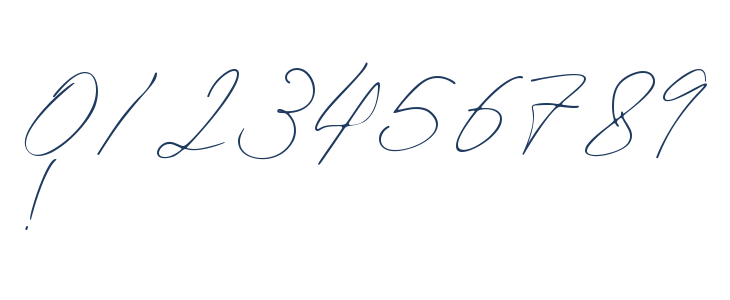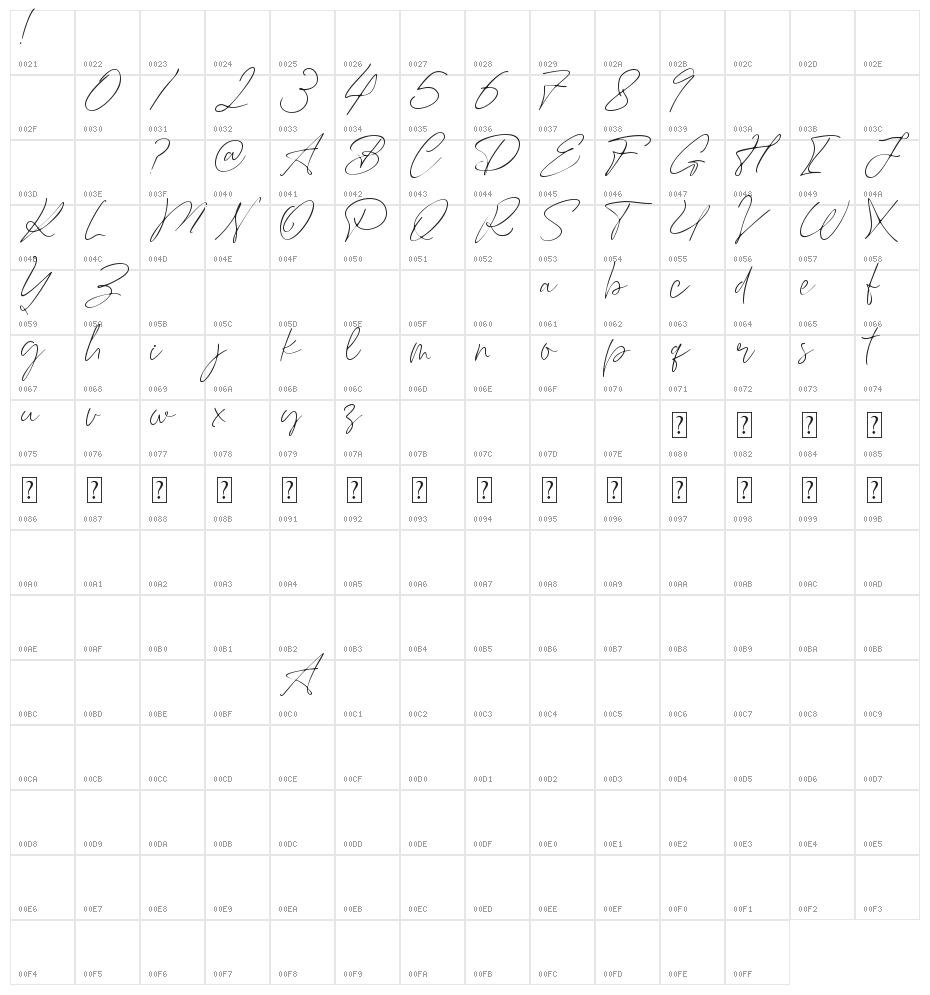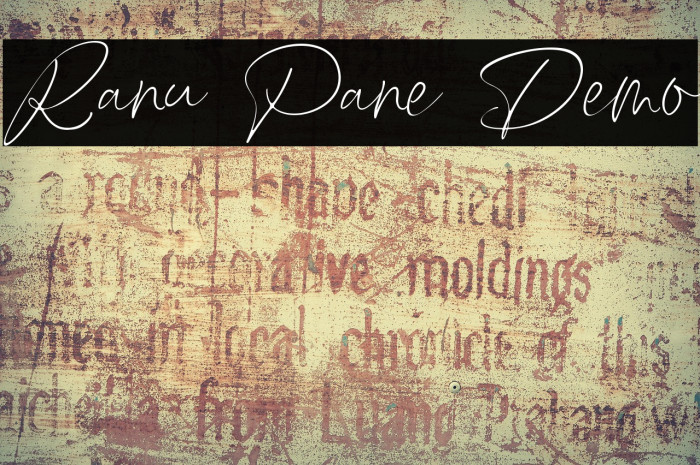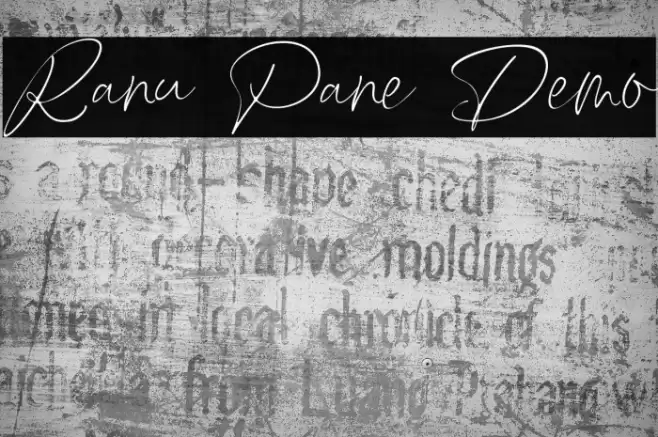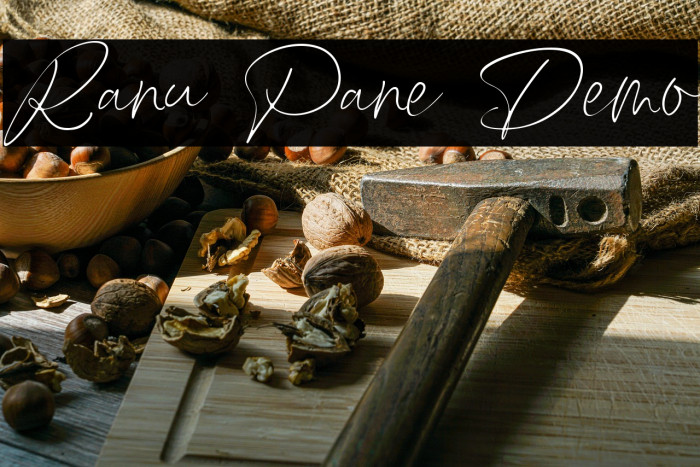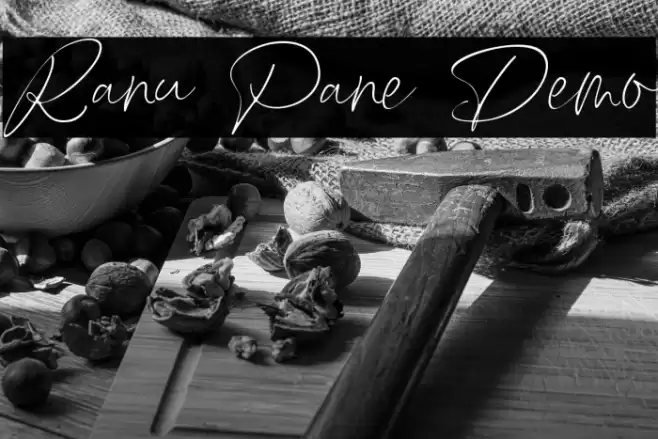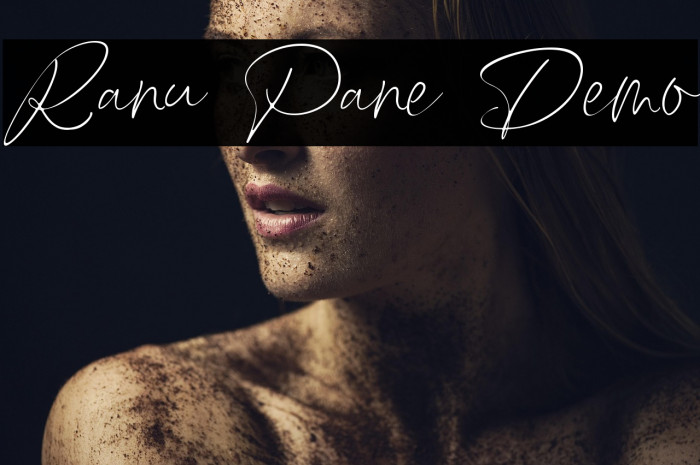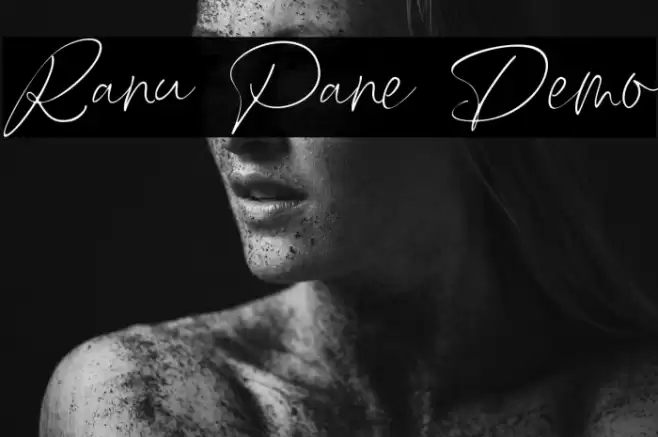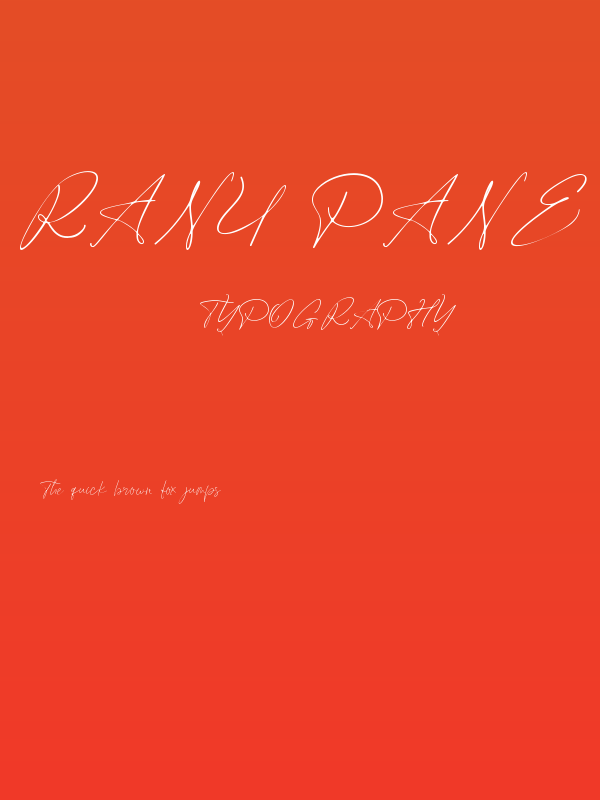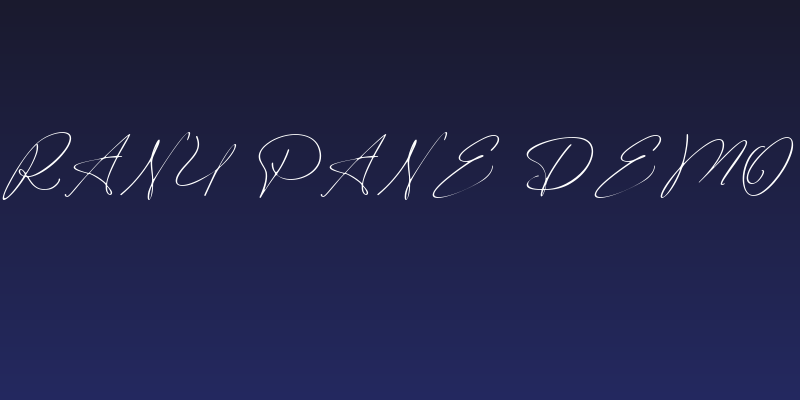
Ranu Pane Demo Font
Ranu Pane Demo Description
This elegant script font features a flowing, cursive style with smooth, continuous strokes that mimic natural handwriting. The uppercase letters are slightly more elaborate, with graceful loops and curves, while the lowercase letters maintain a consistent, fluid motion. The numerals are distinct yet harmonize well with the overall script style. This font exudes a sense of sophistication and personal touch, making it ideal for projects that require a humanistic and artistic flair. The characters are well-spaced, allowing for readability while maintaining the aesthetic of handwritten text. The font's delicate lines and curves give it a refined and stylish appearance, suitable for a variety of creative applications.
| Overall Style | Elegant, Artistic |
| Proposed Projects | Ideal for wedding invitations, personal branding, greeting cards, and artistic projects. |